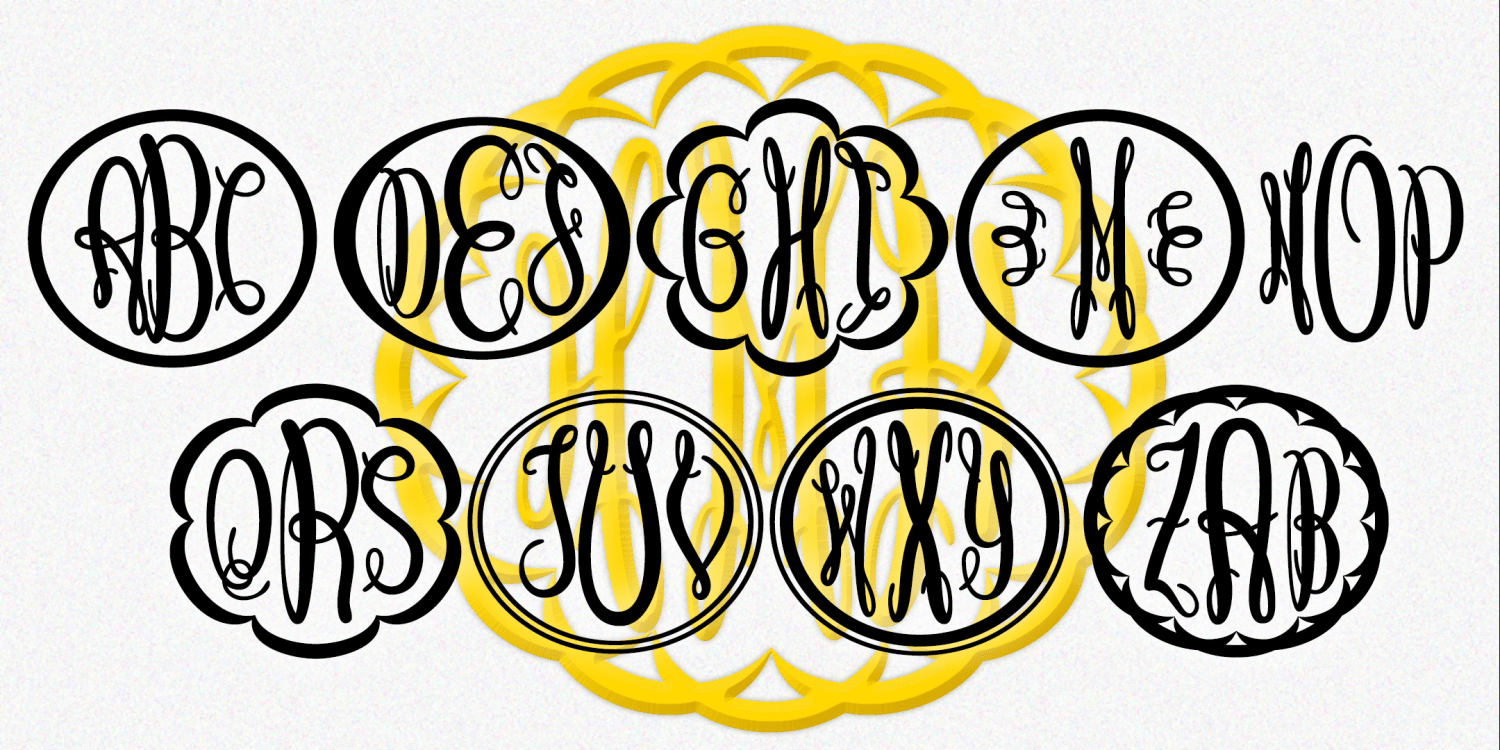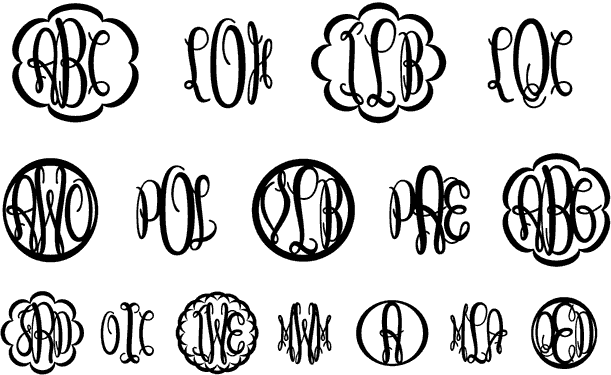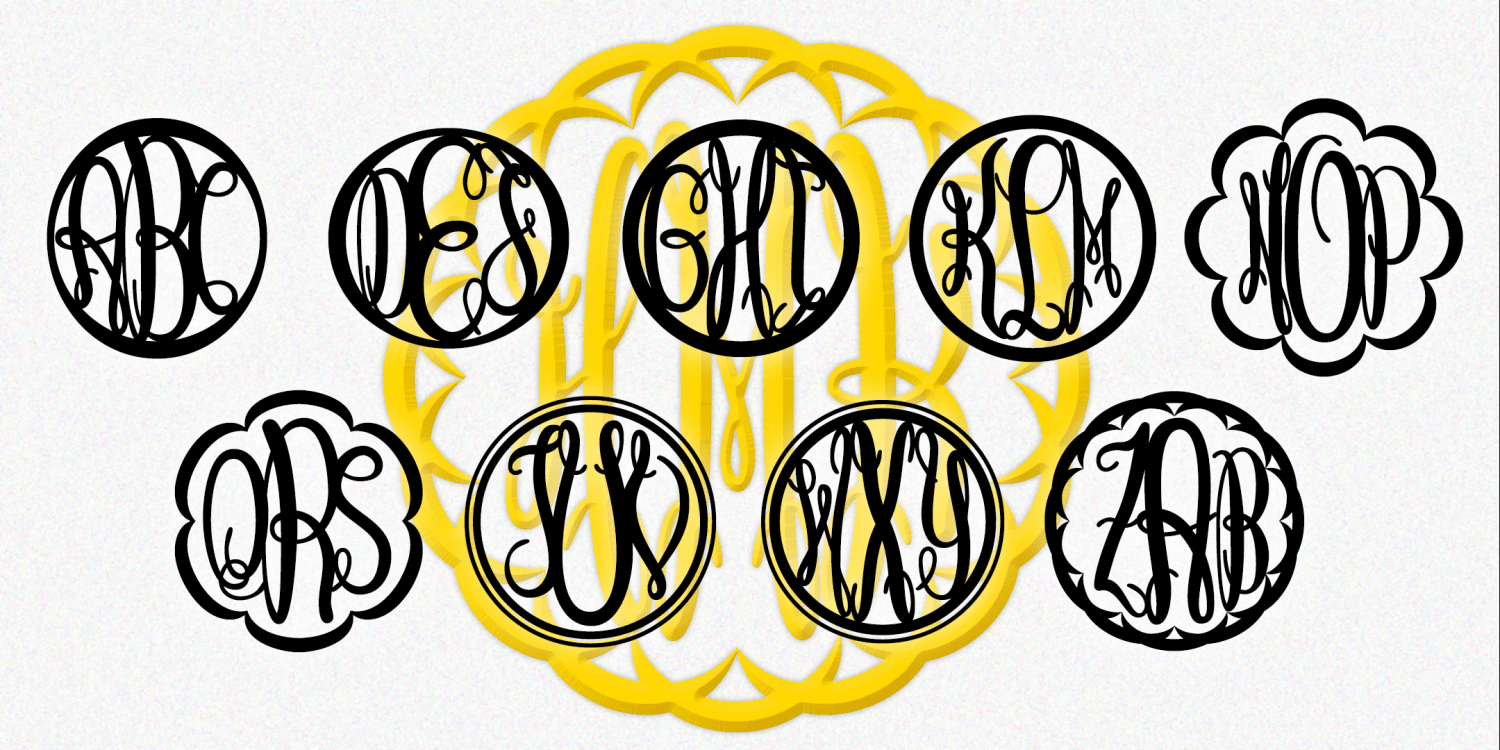
Keepsake Monograms
About Keepsake Monograms
KEEPSAKE MONOGRAMS are unique fonts that let you create custom 3-letter monograms in a distinctive style of adjoining script capitals with or without a choice of decorative borders. The Regular font creates round monograms, the Oval font creates monograms…